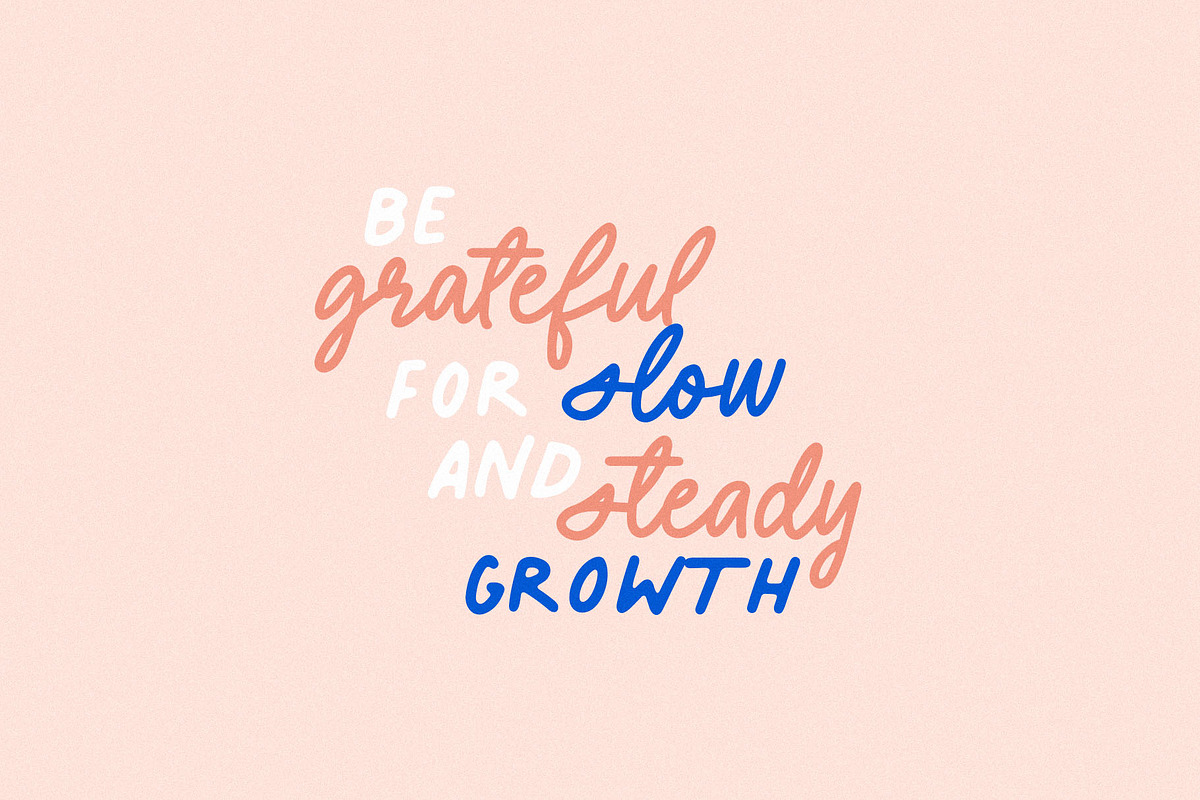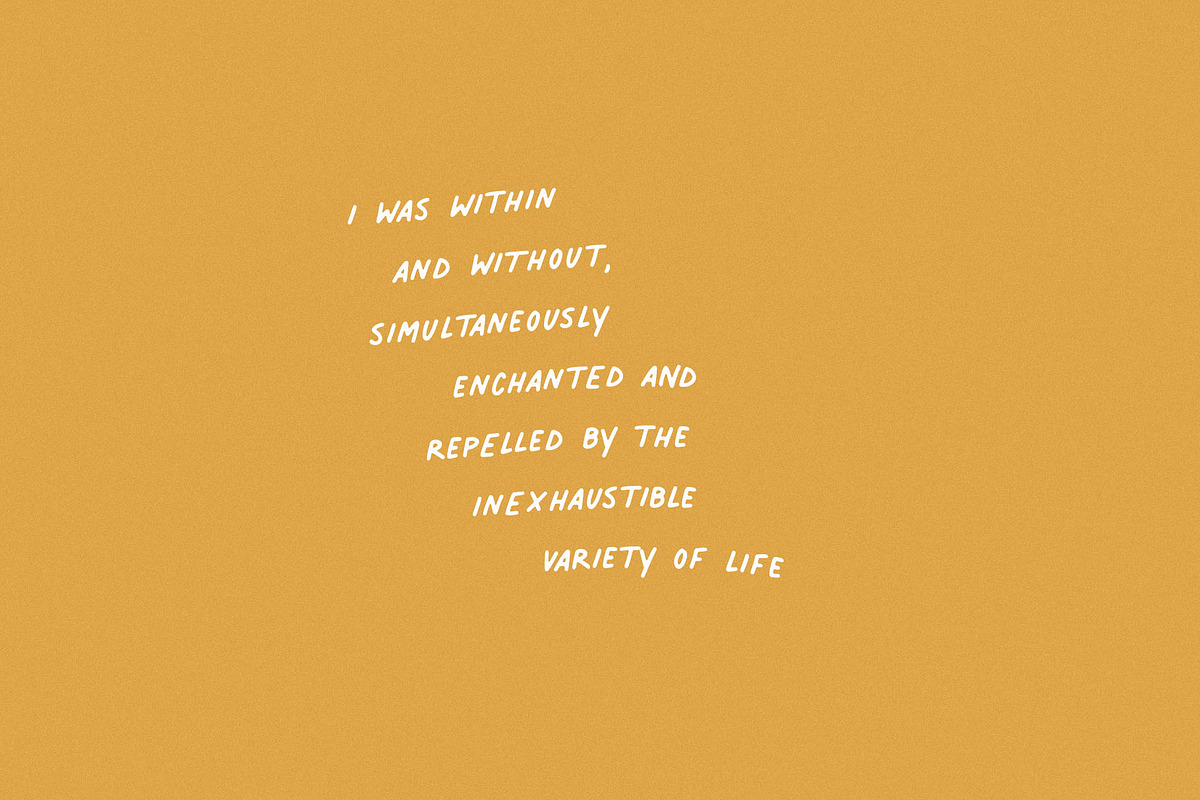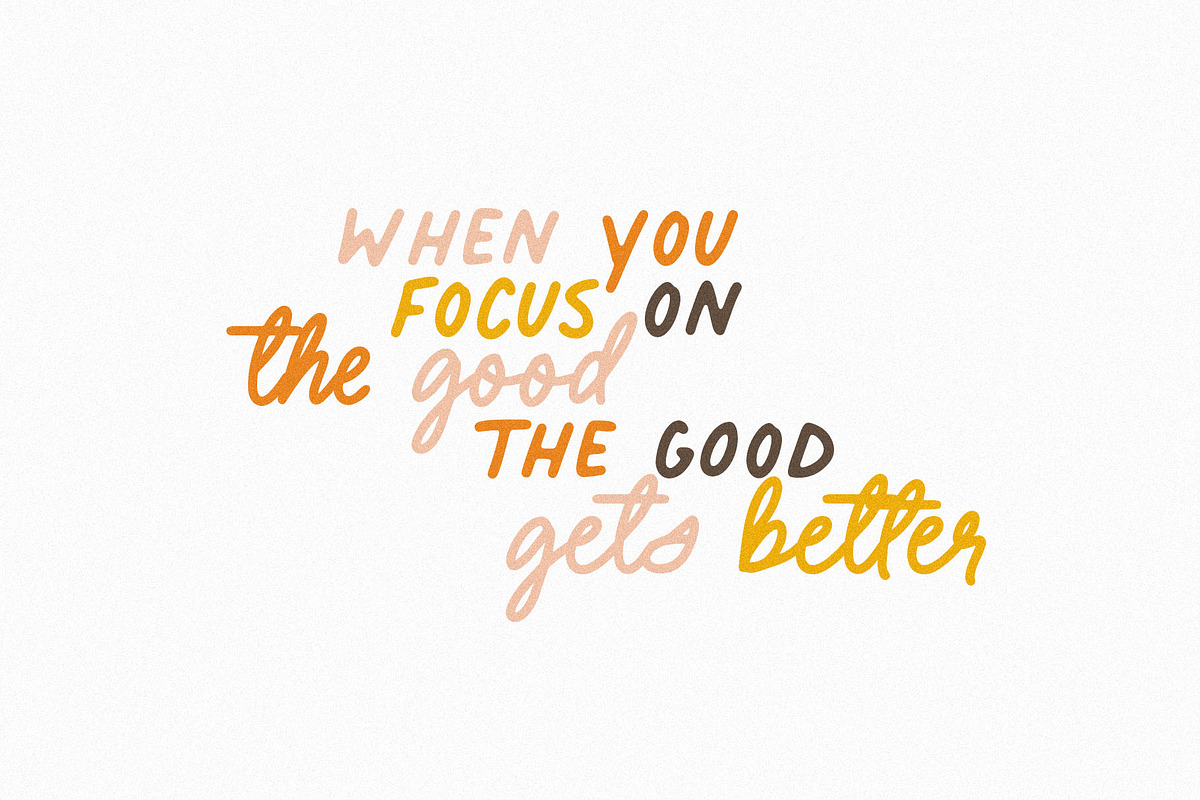
Palmer Lake is such a fun new duo, perfect for creating quotes, logos, or just adding a hand-written touch to any project!
While other fonts usually take some size adjusting to look just right, Palmer Lake duo has the same stroke thickness for both fonts, so you can set each font to the same size and you’re done!
Plus, the uppercase letters of the Print font are the same height as the lowercase letters of the script font (see the samples), so lining them up with one another is a breeze!
Each font also has alternates for each letter, so when you type uppercase or lowercase for each font, the letters will change slightly.